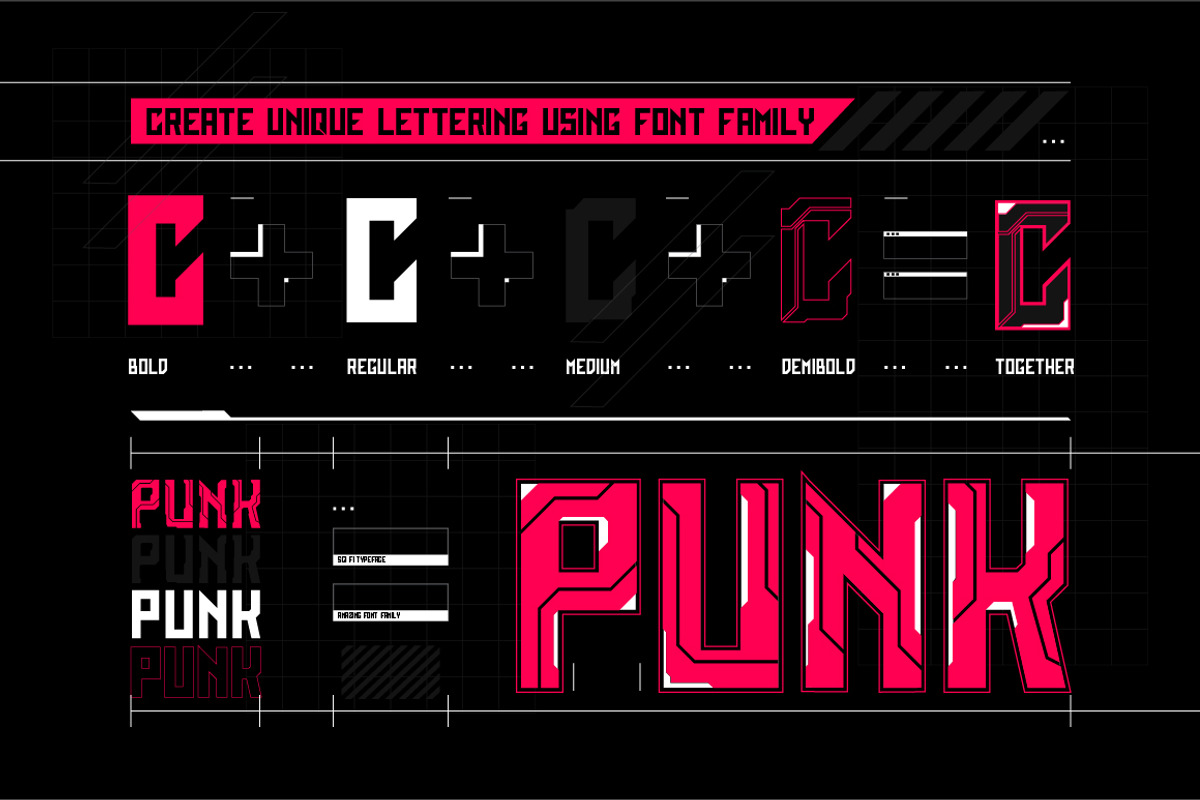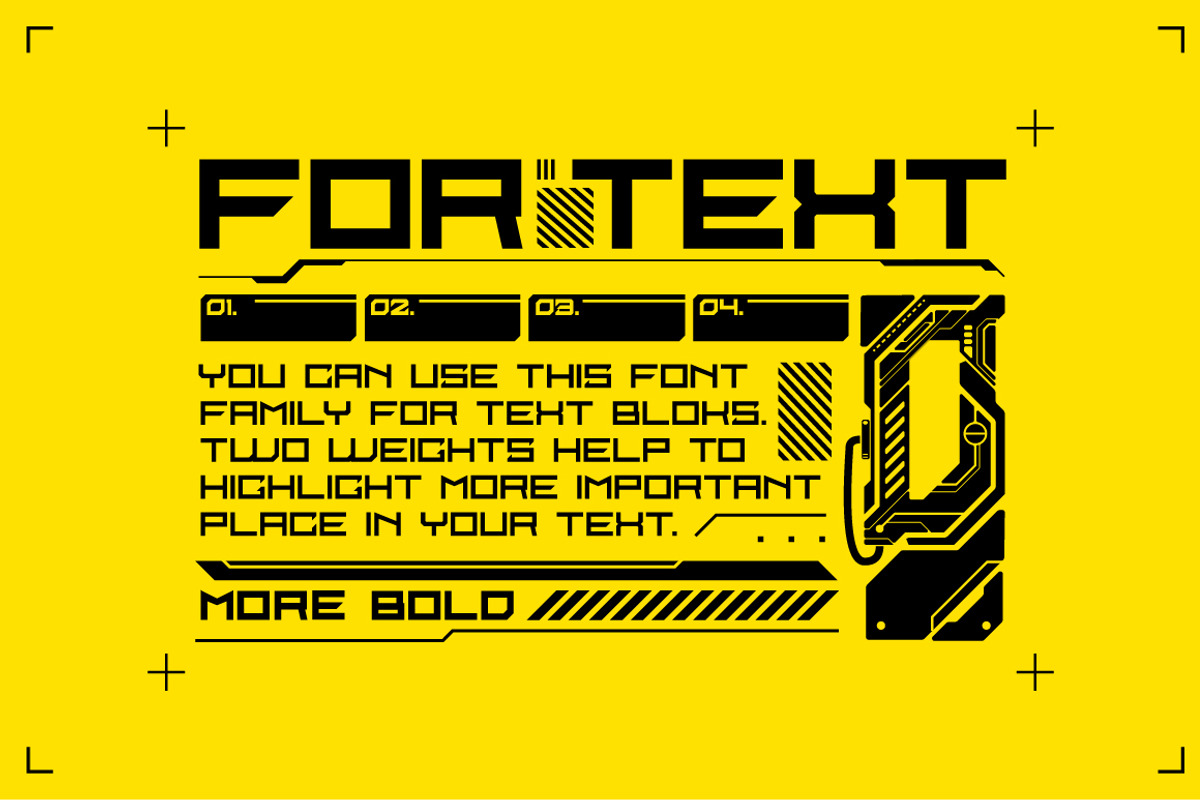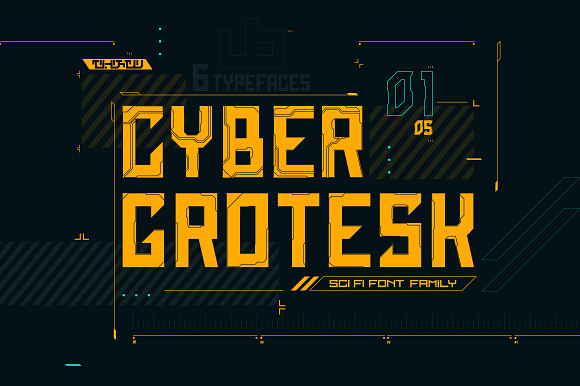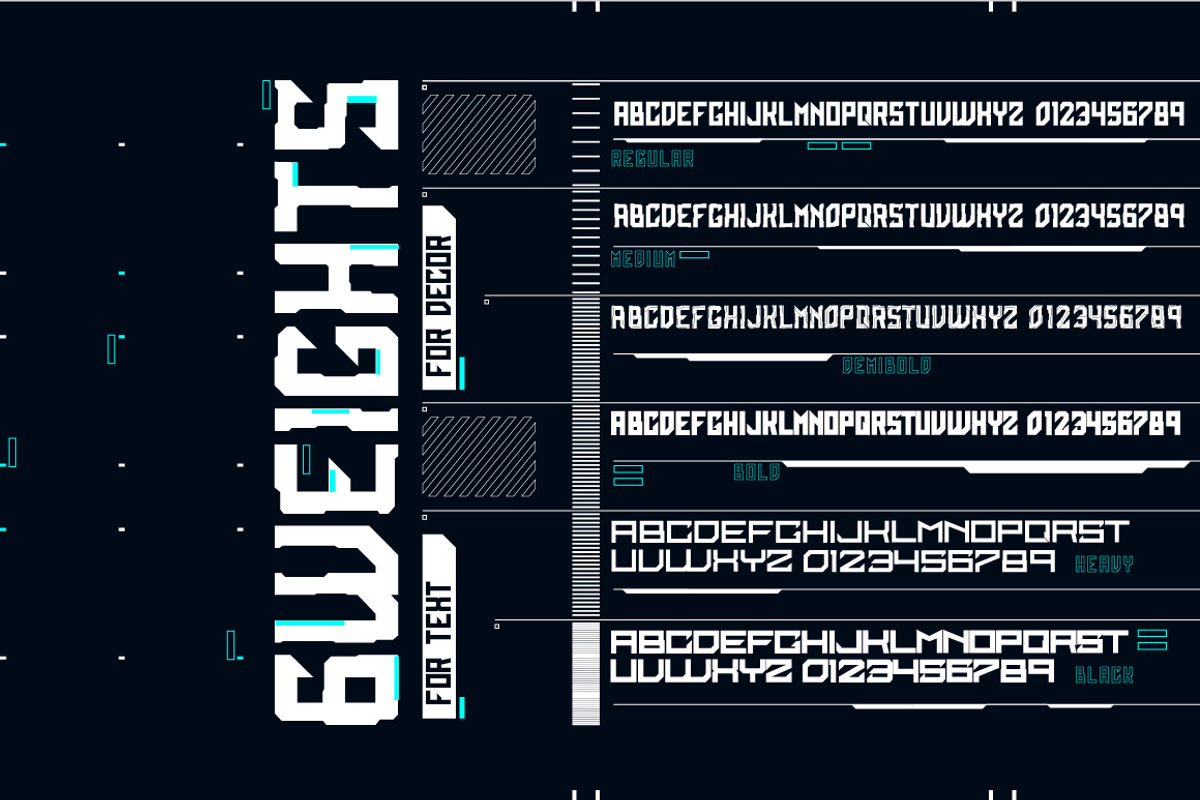
Cyber Grotesk. Font family
Do you like cyberpunk? I am adore cyberpunk. I like so much like geometry, futurism and technology. And I saw that from year to year show up more things in this style. That's why I decided to create Cyber Grotesk. It is family of six fonts in sci fi and cyber styles. Combine it you can create really modern lettering in sci fi style. I think it will be good for games, posters, branding and movies. But you can find your unique use.